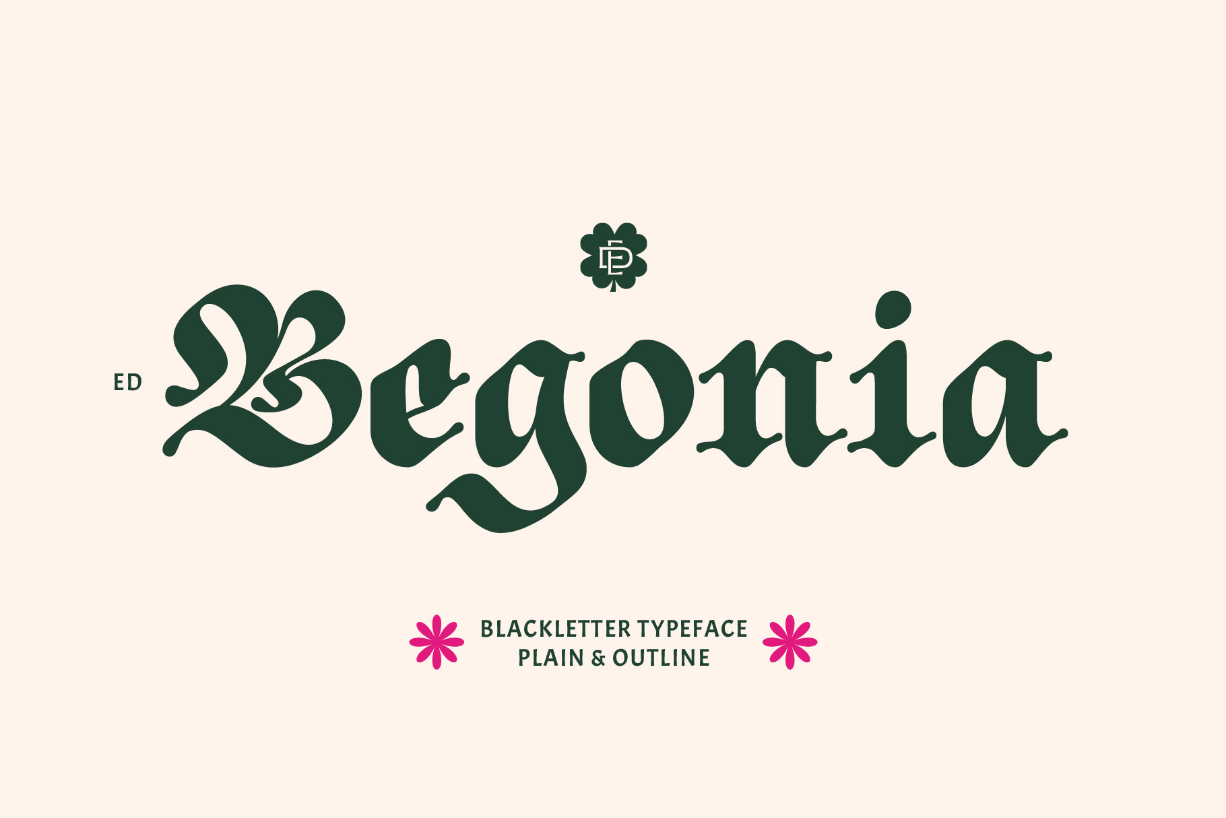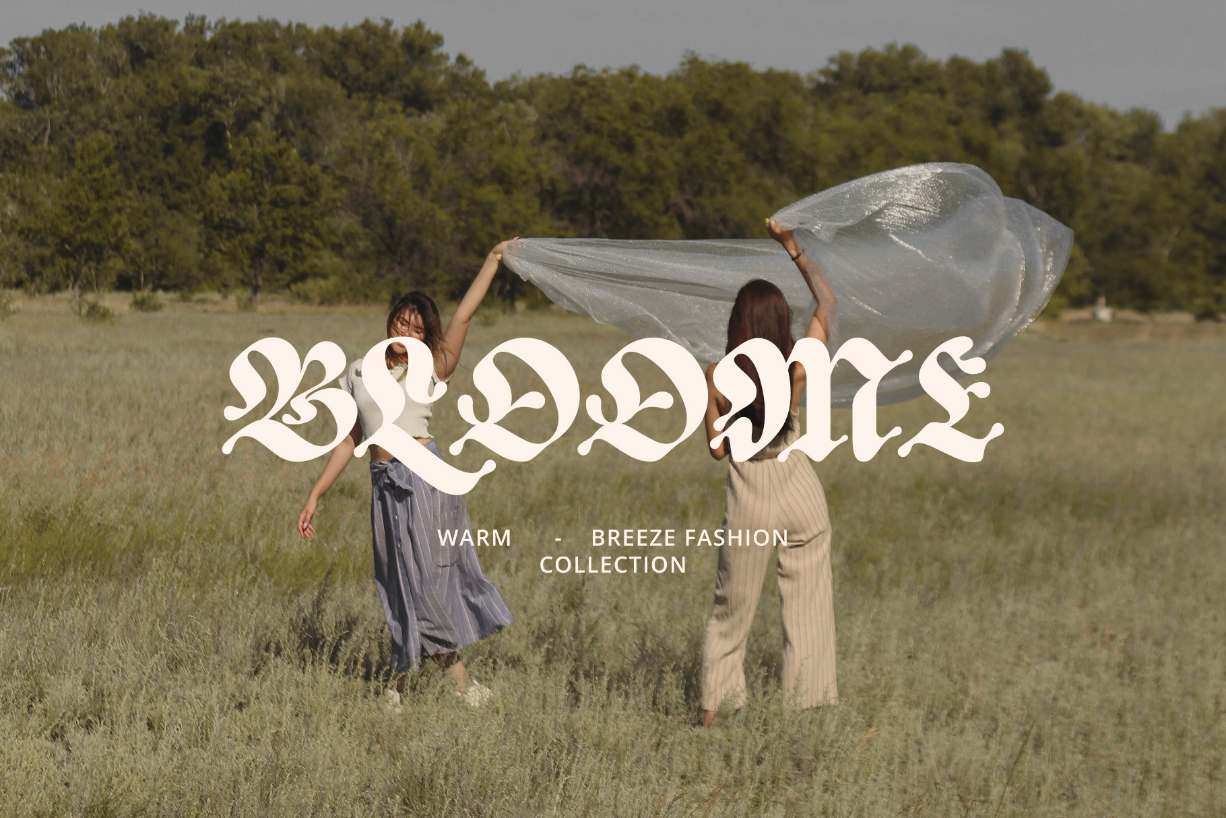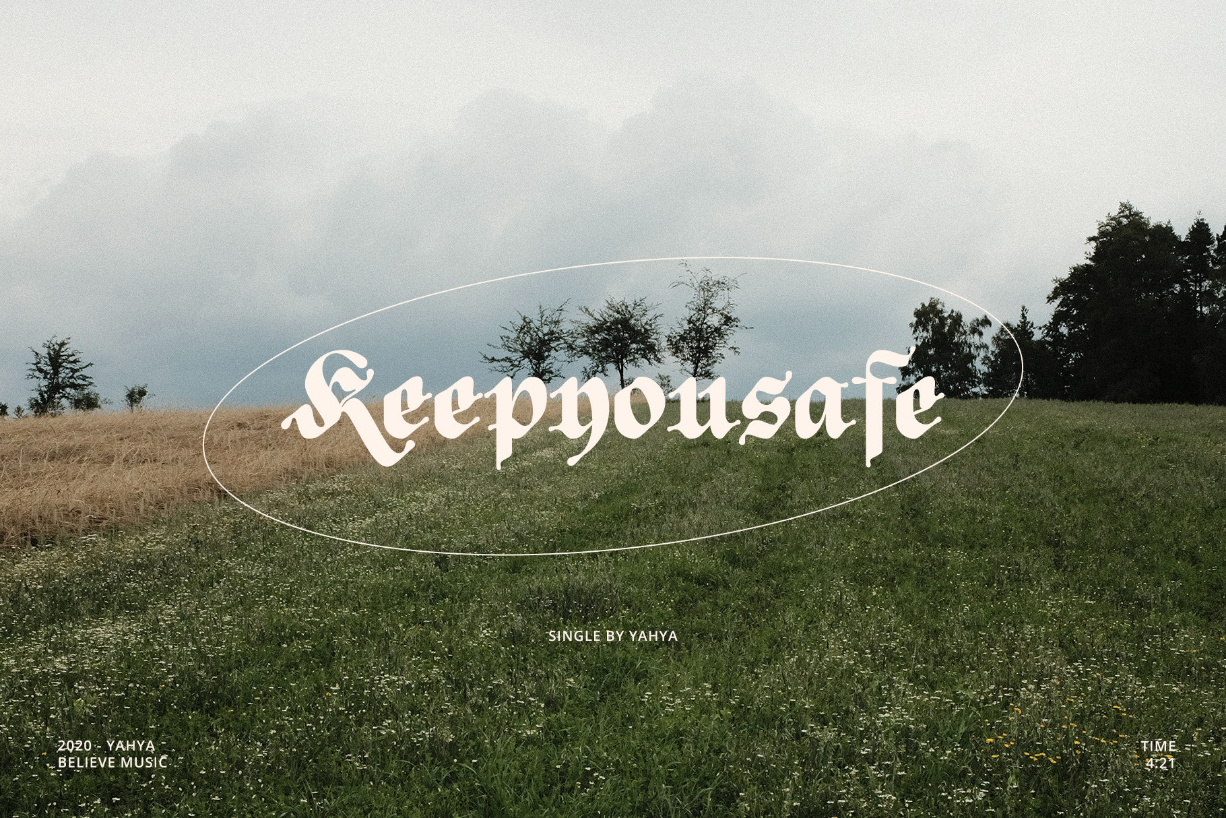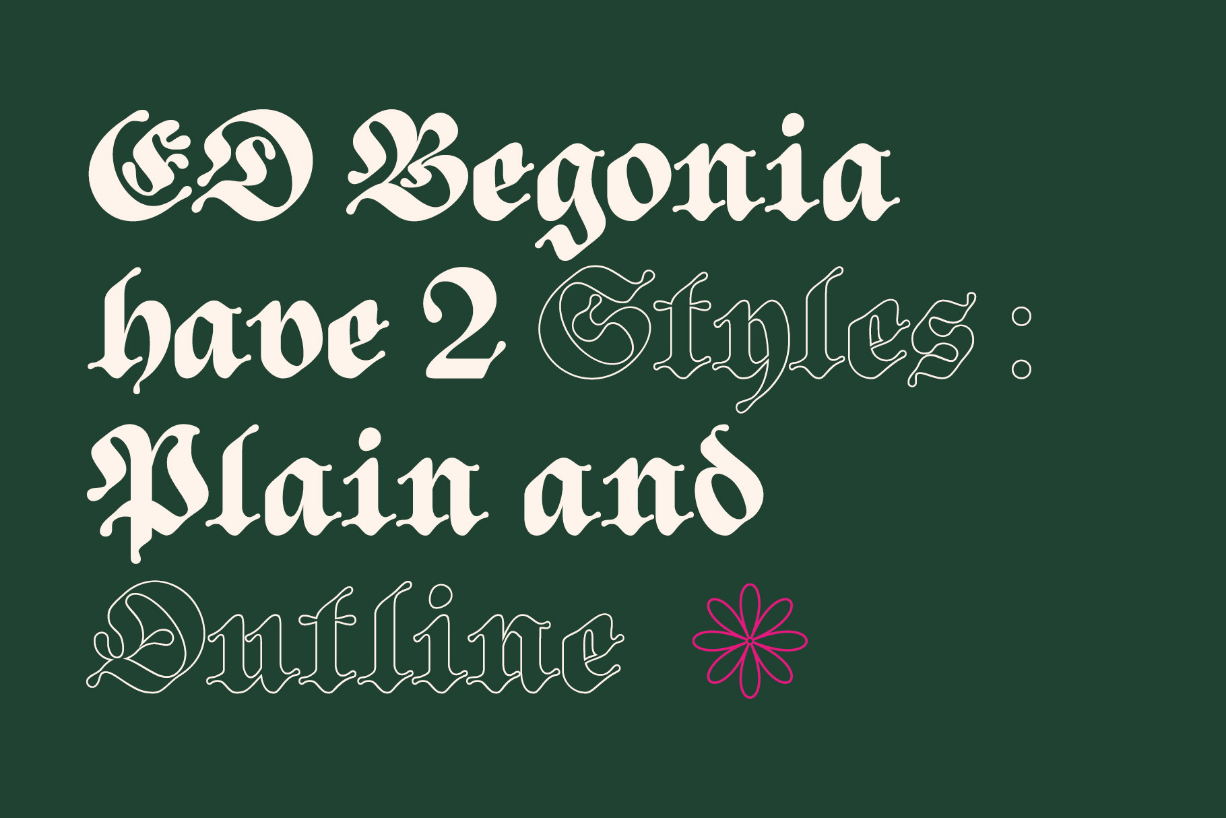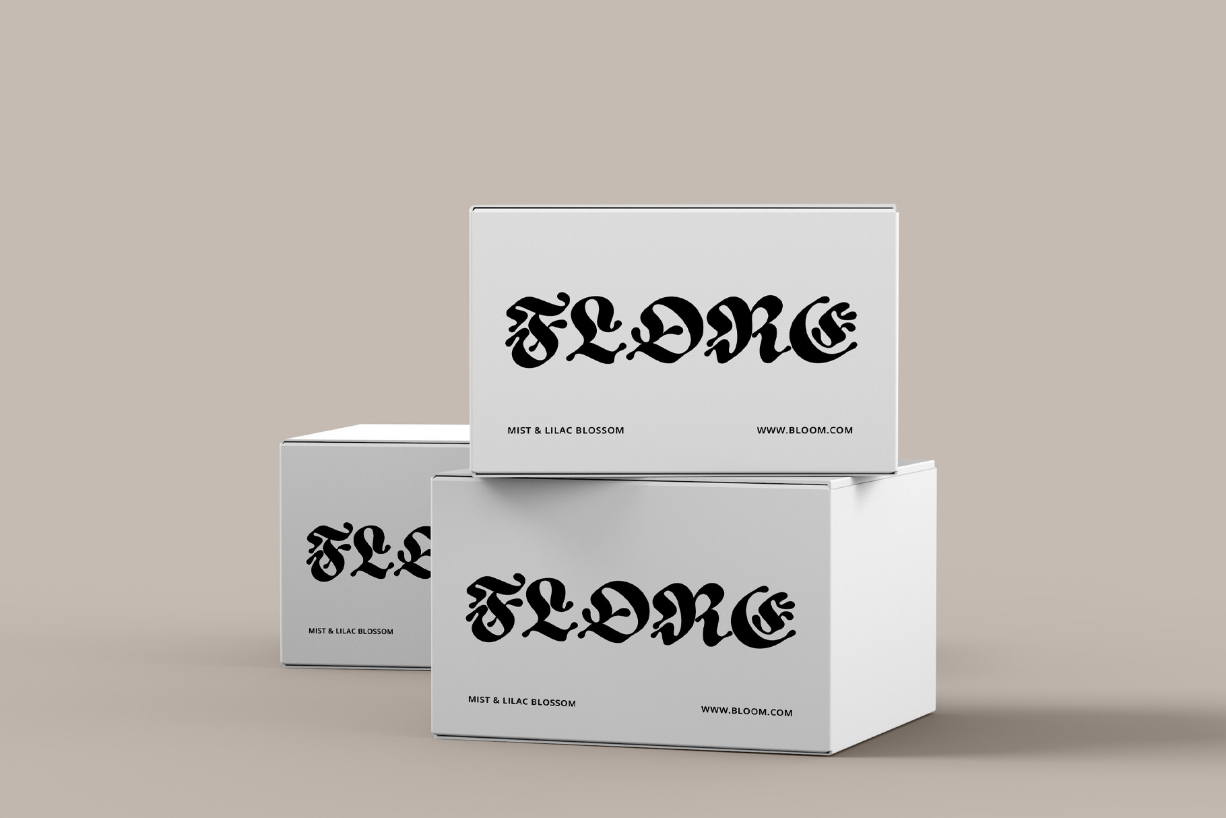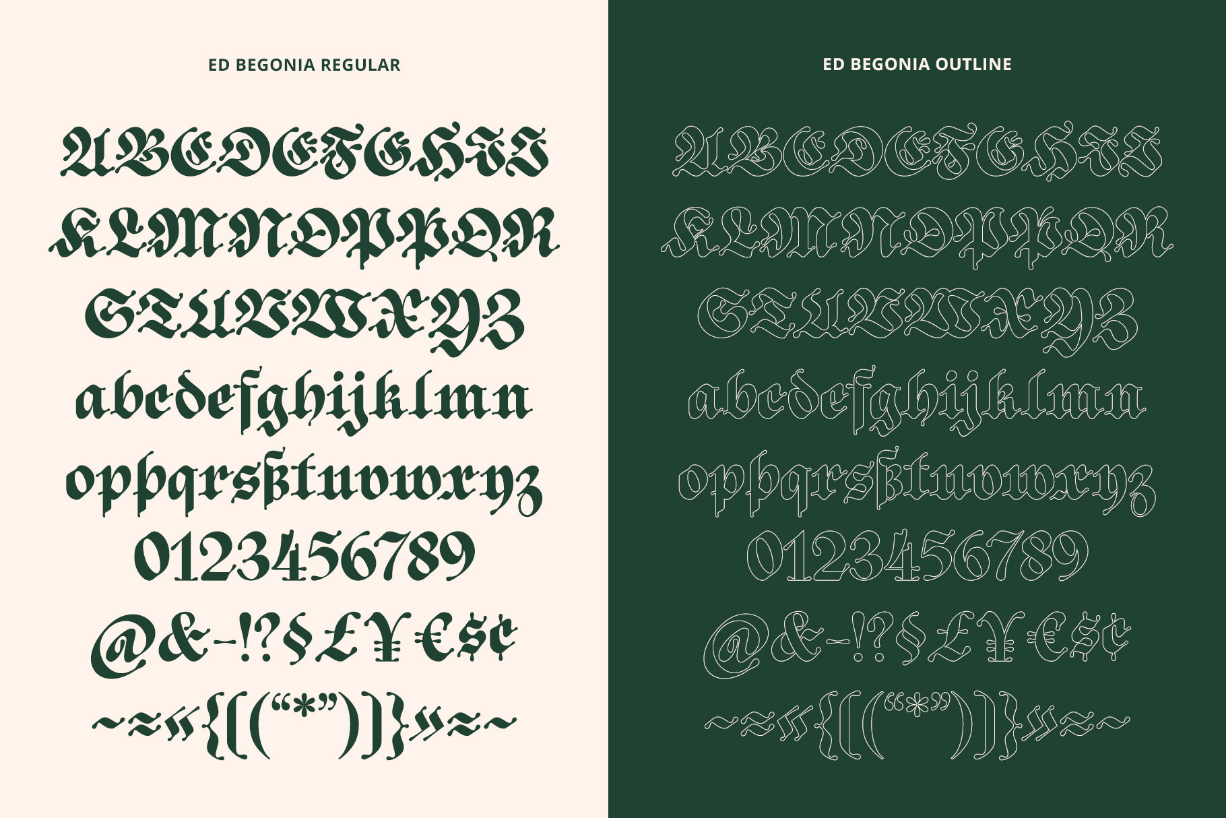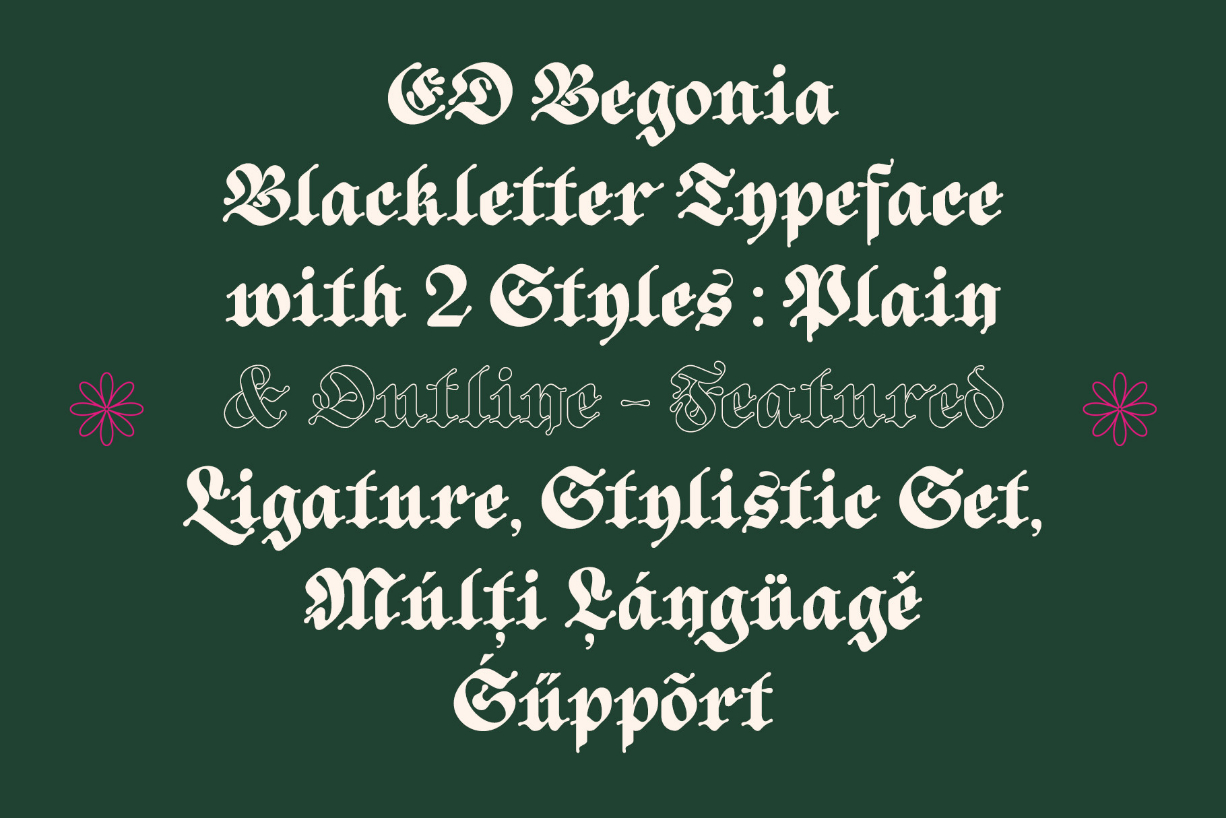
ED Begonia Font
About ED Begonia Font
ED Begonia is a cool, distinct and highly detailed blackletter font. It maintains its classy calligraphic influences while feeling contemporary and fresh. Fall in love with it and bring your projects to the highest levels!